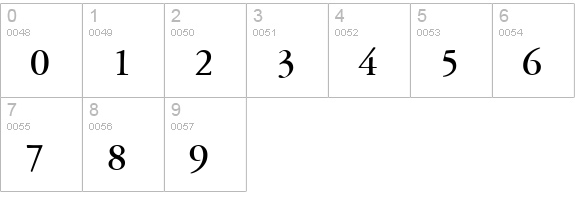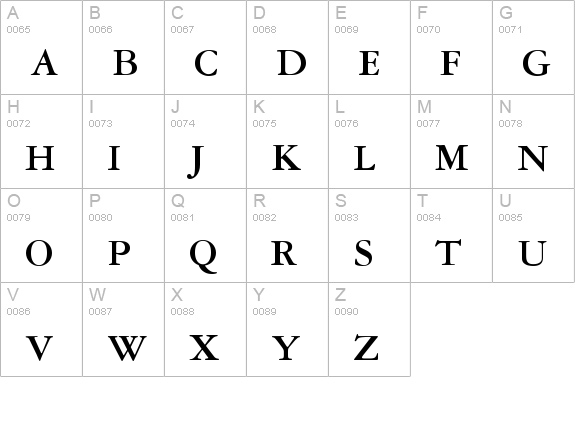
Garamond Reprise SSi Bold Font Details
Garamond Reprise SSi Bold is a strong, high-contrast variant in the Garamond typeface family \xE2\x80\x94 well suited to headlines, attention-grabbing titles, and strong calls-to-action.
Garamond Reprise SSi Bold font is a timeless and elegant typeface that exudes sophistication and class. With its bold and commanding presence, this font is perfect for making a bold statement in any design project. The Garamond Reprise SSi Bold font features strong and distinct letterforms, with a perfect balance between thick and thin strokes. Its clean and crisp lines create a sense of professionalism, making it ideal for professional documents, branding materials, and high-end publications. This font effortlessly combines tradition and modernity, making it suitable for a wide range of design styles. Whether it's for a classic editorial layout, a sleek corporate identity, or a contemporary website, Garamond Reprise SSi Bold font adds a touch of refinement and sophistication to any design. One of the best things about Garamond Reprise SSi Bold font is that it is available for free. You can easily download this font at FontsMarket.com, a reputable website that offers a vast collection of high-quality fonts. By making Garamond Reprise SSi Bold font freely available, it allows designers and creatives to access this exceptional typeface without any financial barriers, enabling them to bring their visions to life with ease. So, whether you're a professional designer looking to elevate your projects or an aspiring creative searching for the perfect font to make a statement, Garamond Reprise SSi Bold font is an excellent choice. With its timeless elegance, versatility, and the added bonus of being freely available to download at FontsMarket.com, this font is a must-have for any design enthusiast.